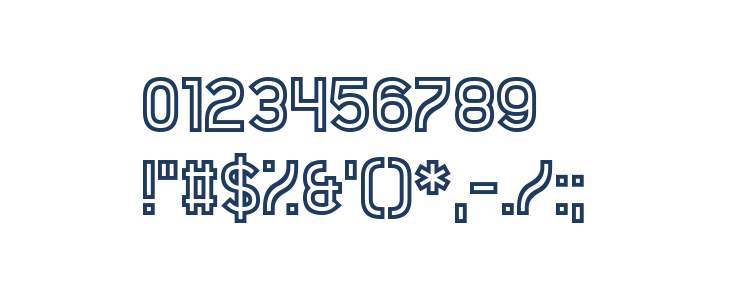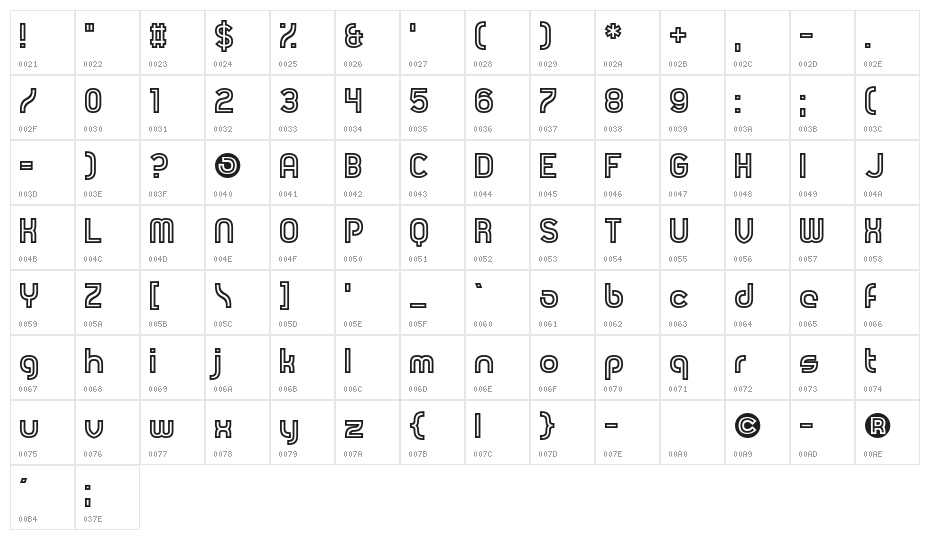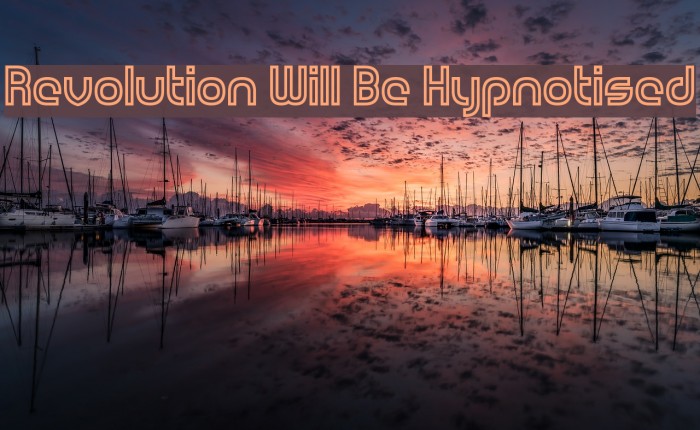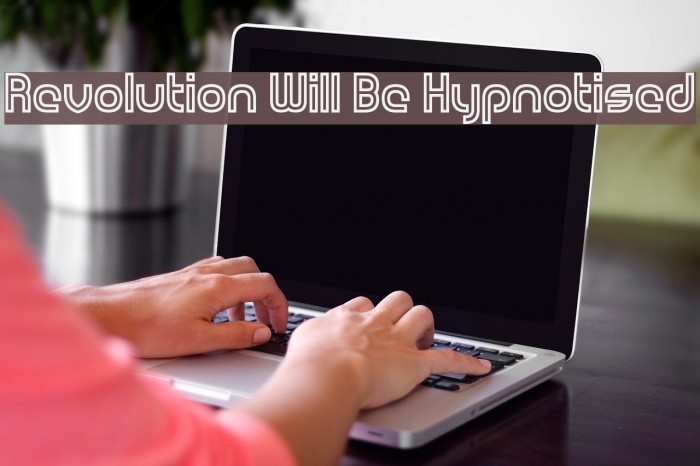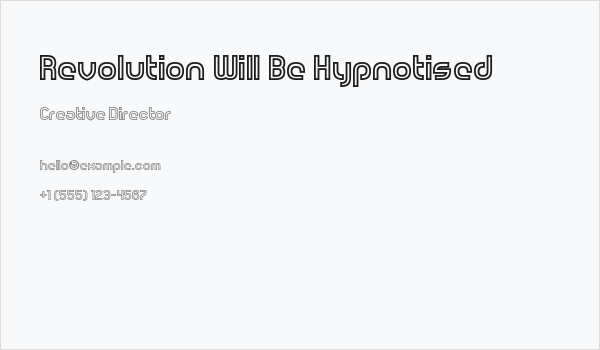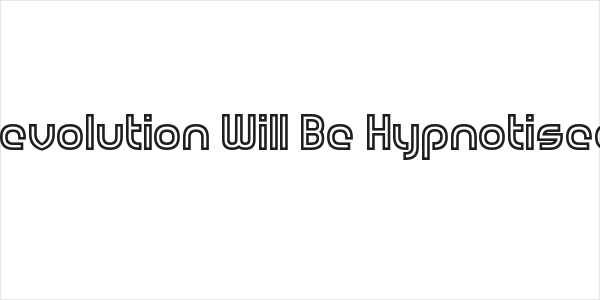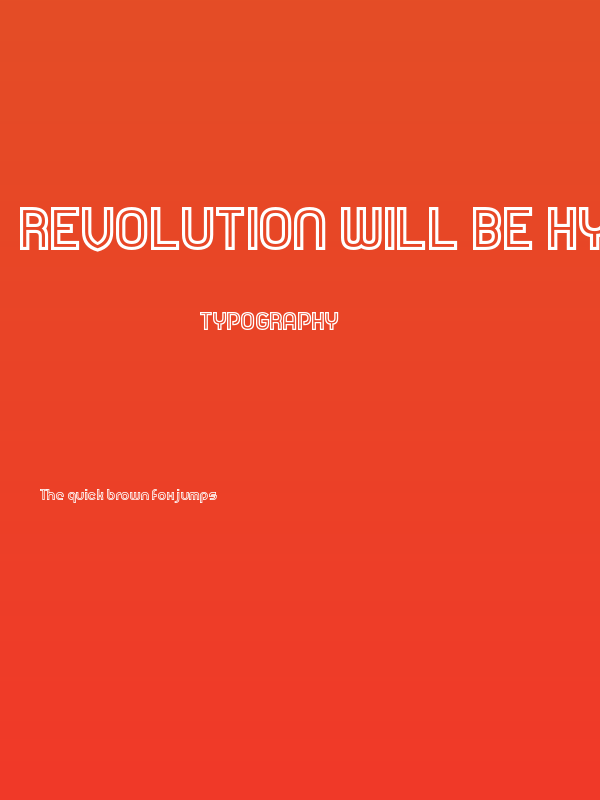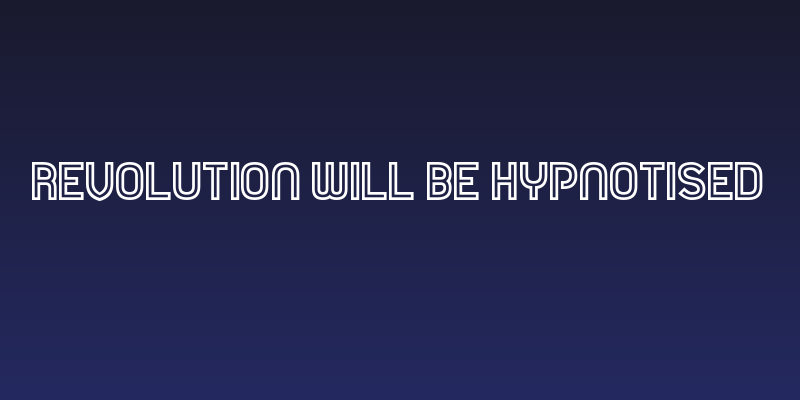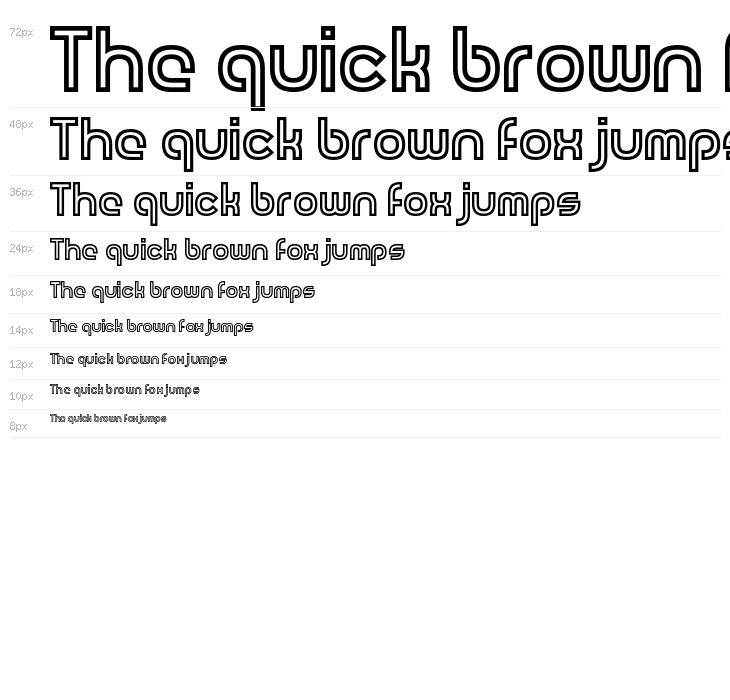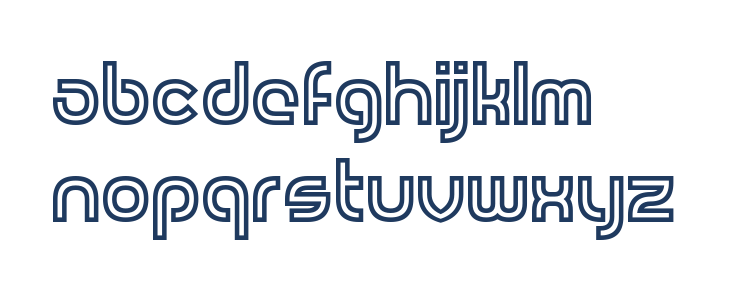
Revolution Will Be Hypnotised Font
Revolution Will Be Hypnotised Description
This font features a bold, geometric design with a double-line structure that creates a striking visual effect. The uppercase and lowercase letters maintain a consistent width, giving the font a uniform appearance. The characters are well-spaced, ensuring readability while maintaining a unique style. The numbers and special characters follow the same design principles, making them cohesive with the alphabet. This font's modern and futuristic aesthetic makes it suitable for projects that require a bold statement.
| Proposed Projects | Ideal for branding, posters, headlines, and digital media that require a modern and eye-catching design. |